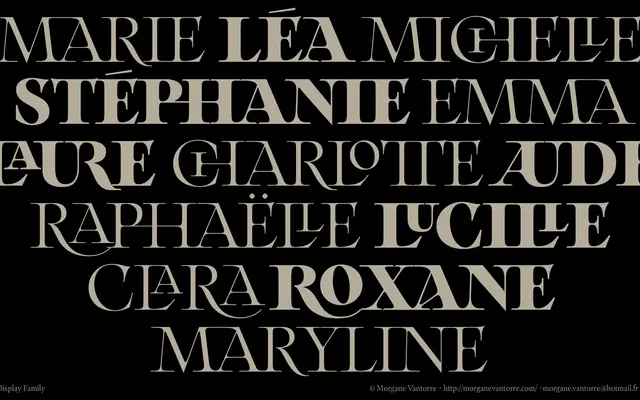
Arthemys Display Light
Type Department · Morgane Vantorre
A display serif by Paris-based Morgane Vantorre, drawn from 18th-century specimen work and engraved cartographic lettering.
Rooted in Nicolas Gando's specimen and the engraved letterforms of historical cartography, this display serif carries a period character balanced by a contemporary sensibility. Its 705-glyph set covers Latin Extended with ligatures, diacritics and fractions, making it broadly usable across European languages. The single Light weight suits large-scale typesetting where delicacy and a degree of formality are both required.
An 18th-century-influenced serif drawing on Nicolas Gando's specimen and engraved cartographic lettering, designed explicitly for display use with a revival sensibility.